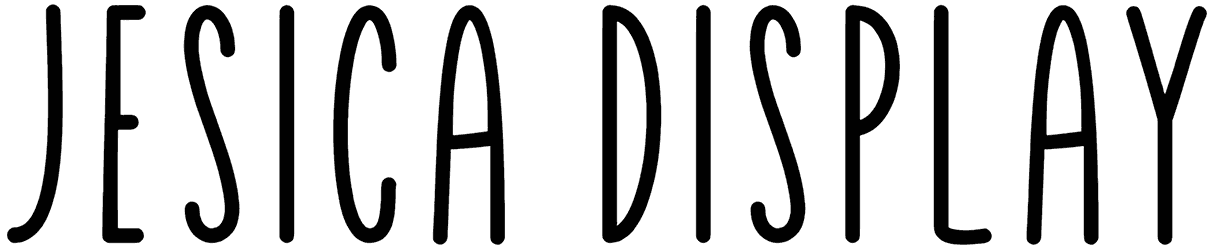
Jesica Display Font
Jesica Display font is a beautiful and unique way to add a personal touch, and it works well without using lowercase letters. This handwritten font has a unique texture and irregularity that gives the text a psychological feeling and creates an organic and natural state.
Therefore, using it can convey different moods that transport the audience to another time and place. So whenever you want to spice up your project, use this handwritten font to design wedding cards, invitations, and heartfelt greetings.